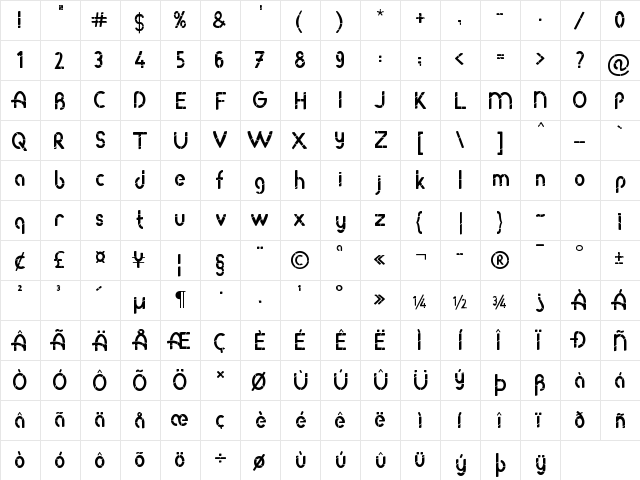
Roda Bamboo Regular
| Designer | Serkan Dilemek |
Design Context for Roda Bamboo Typeface
Roda Bamboo offers clean, dependable letterforms without strong stylistic allegiance, making it a practical choice for designers who need flexibility.
Pro Tip: Use Roda Bamboo in both headline and body roles to test its range before committing to a single application.